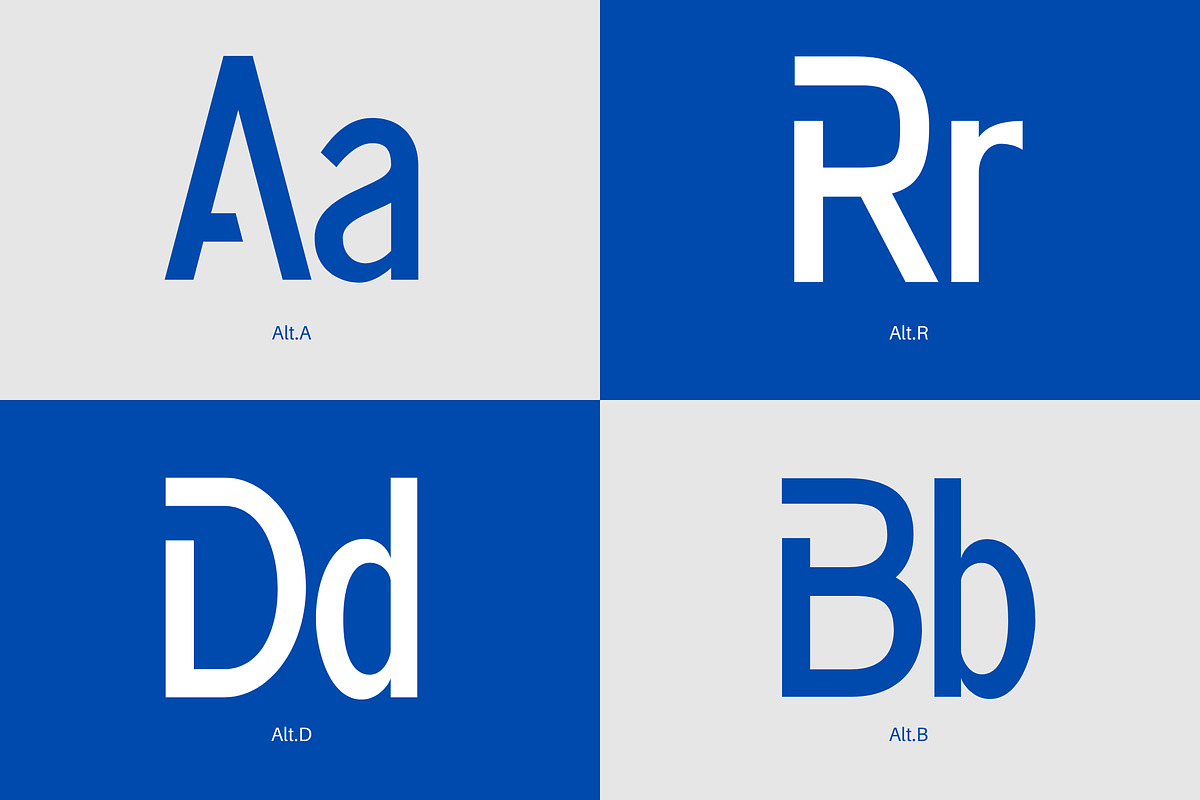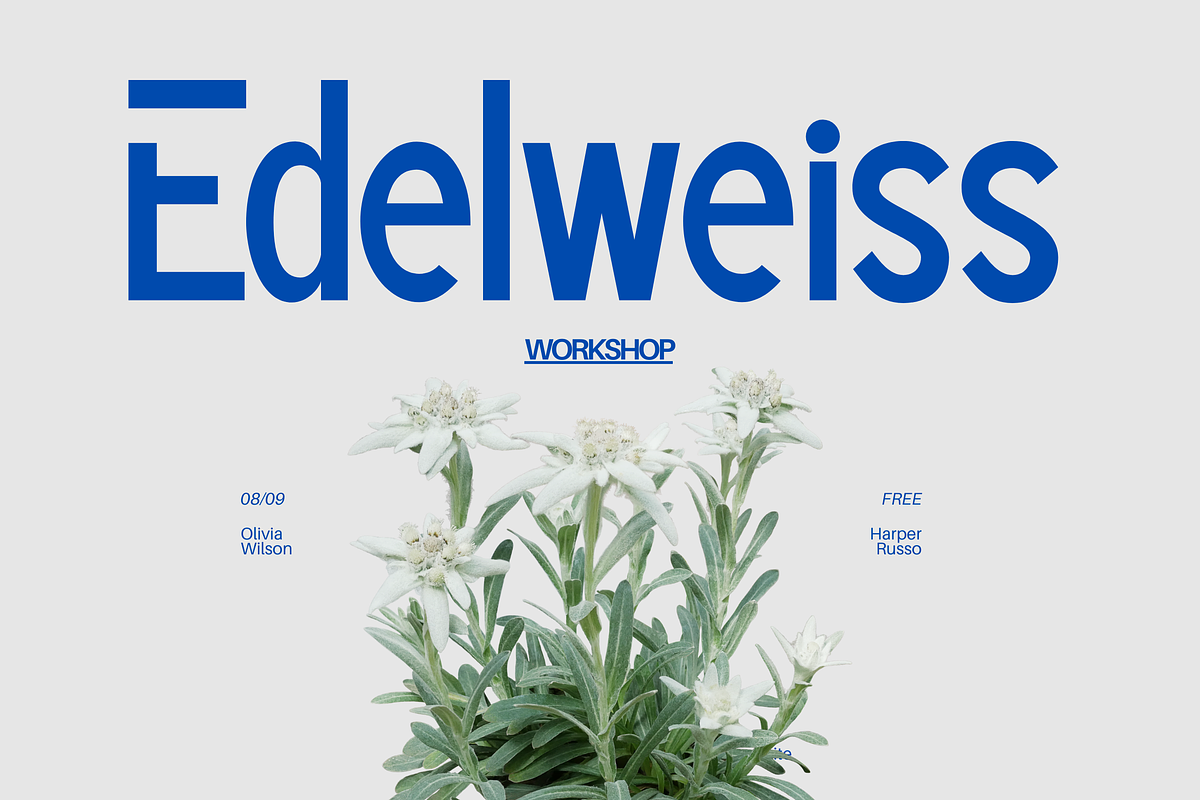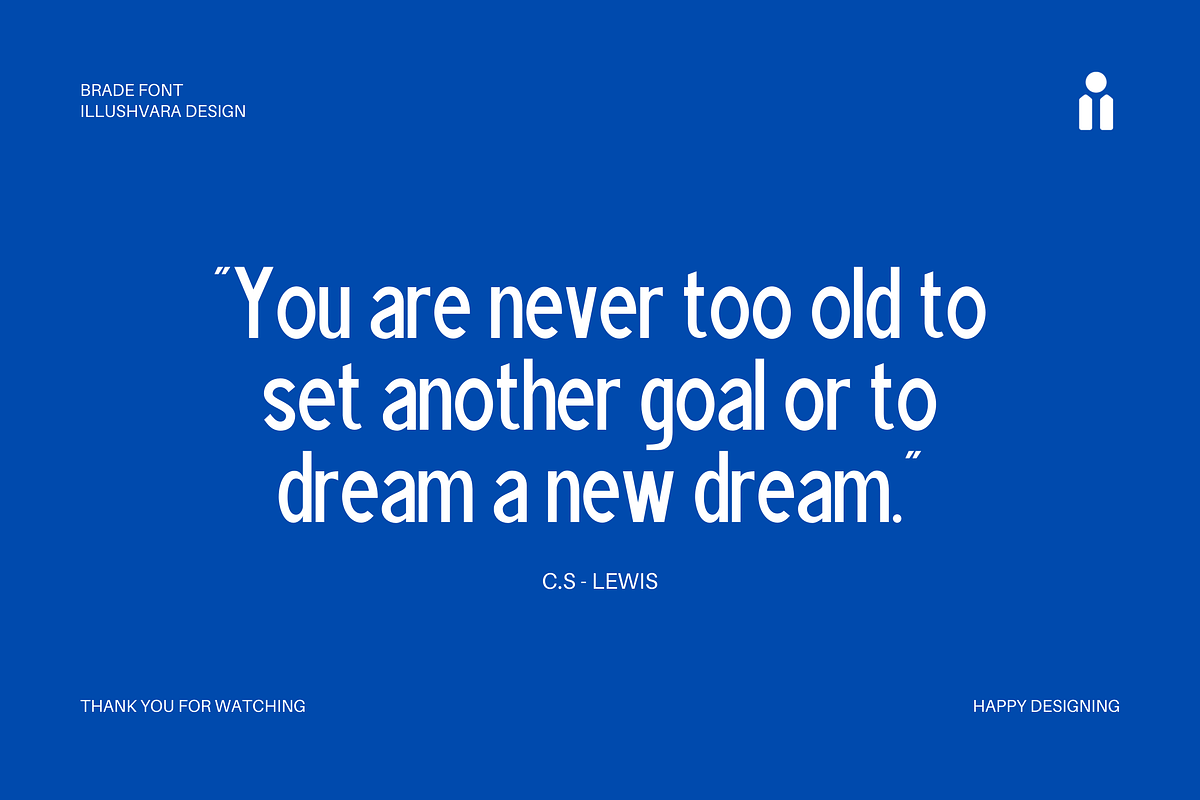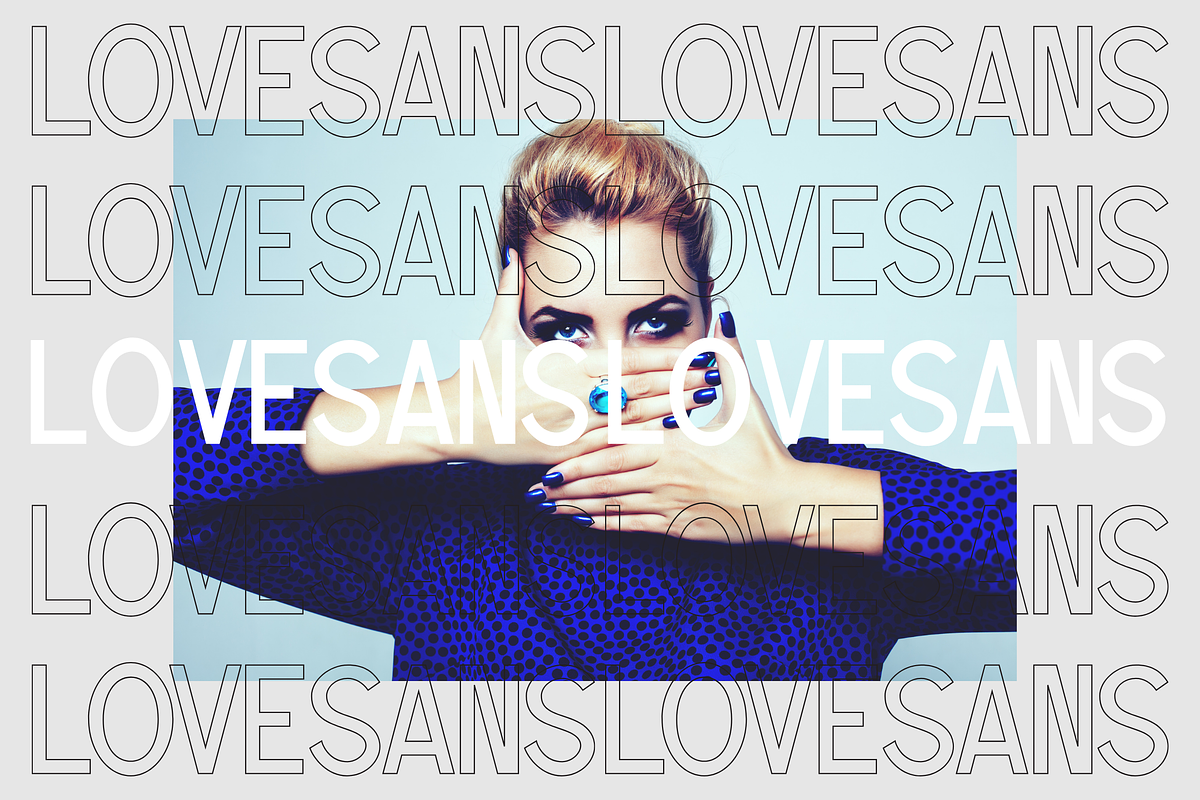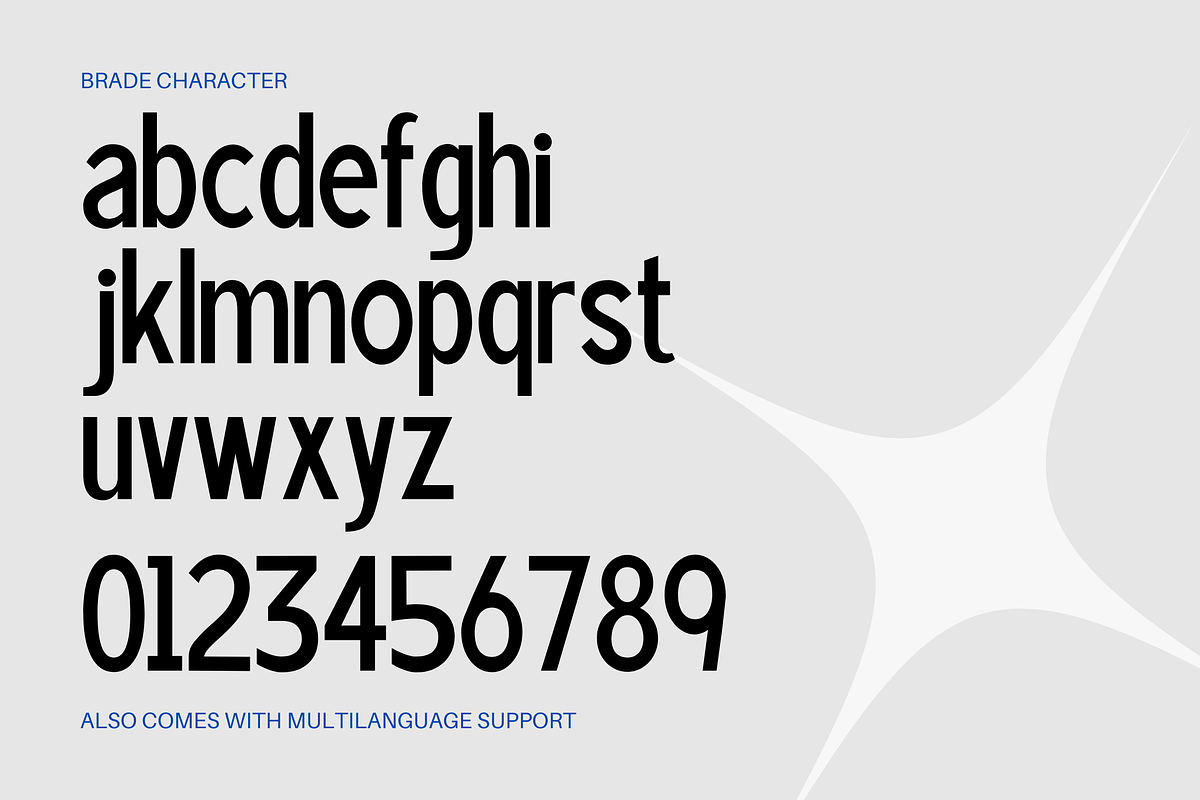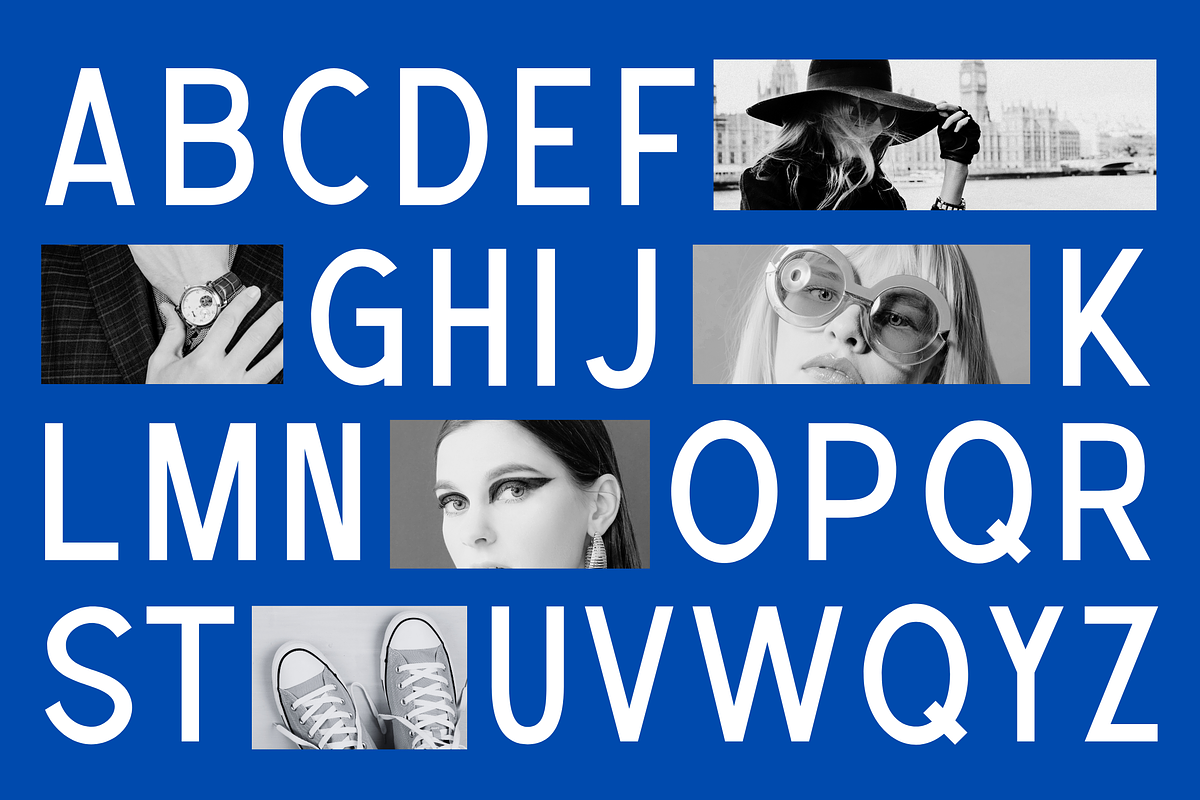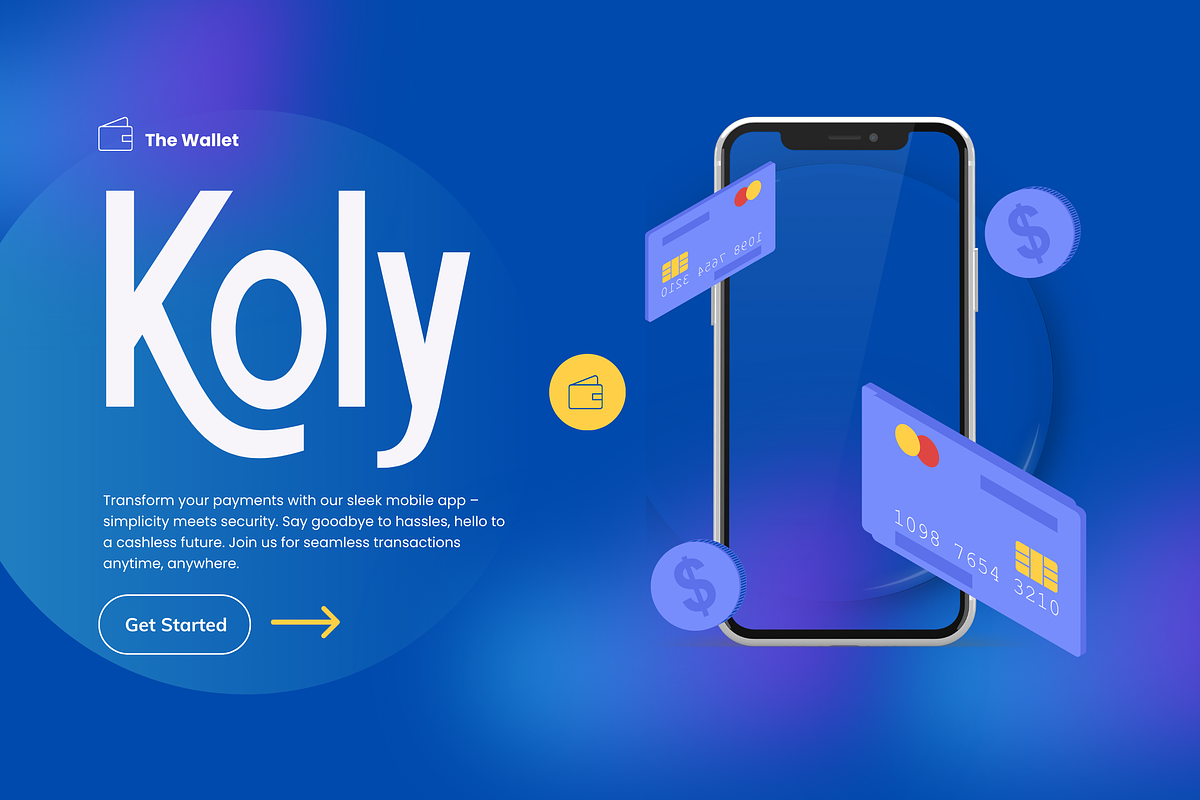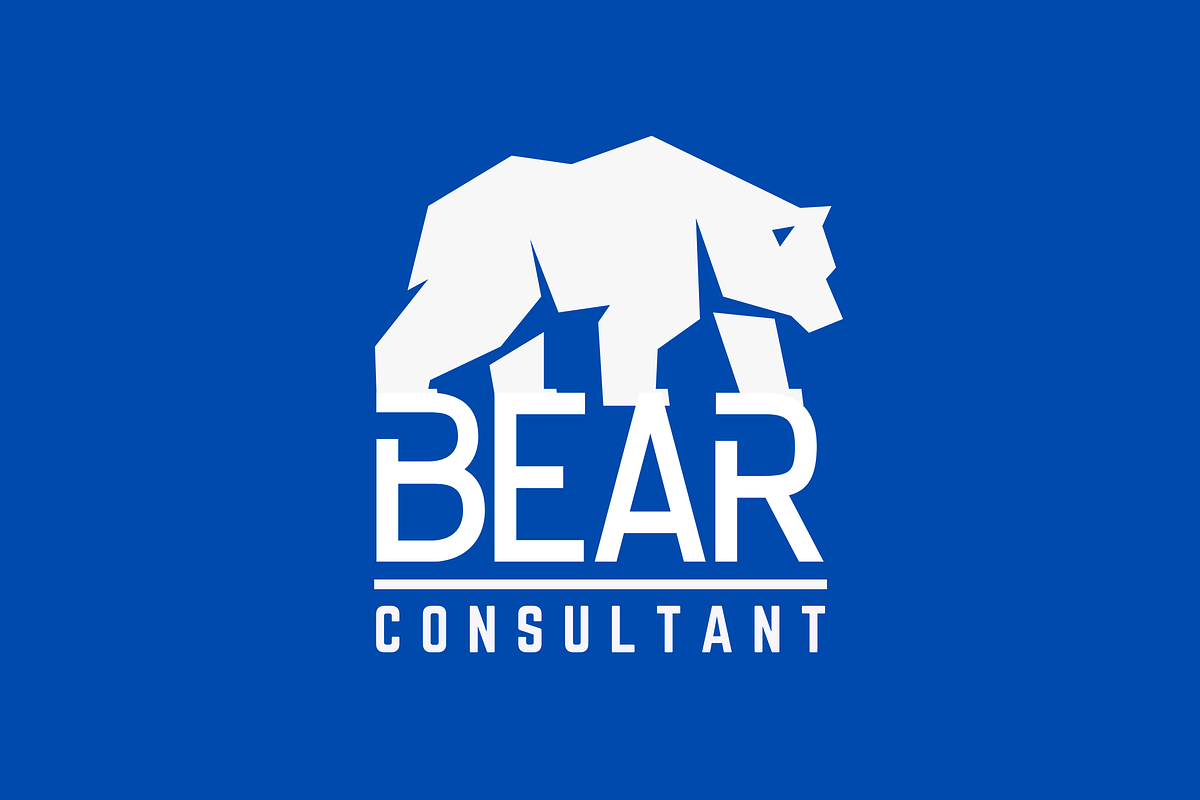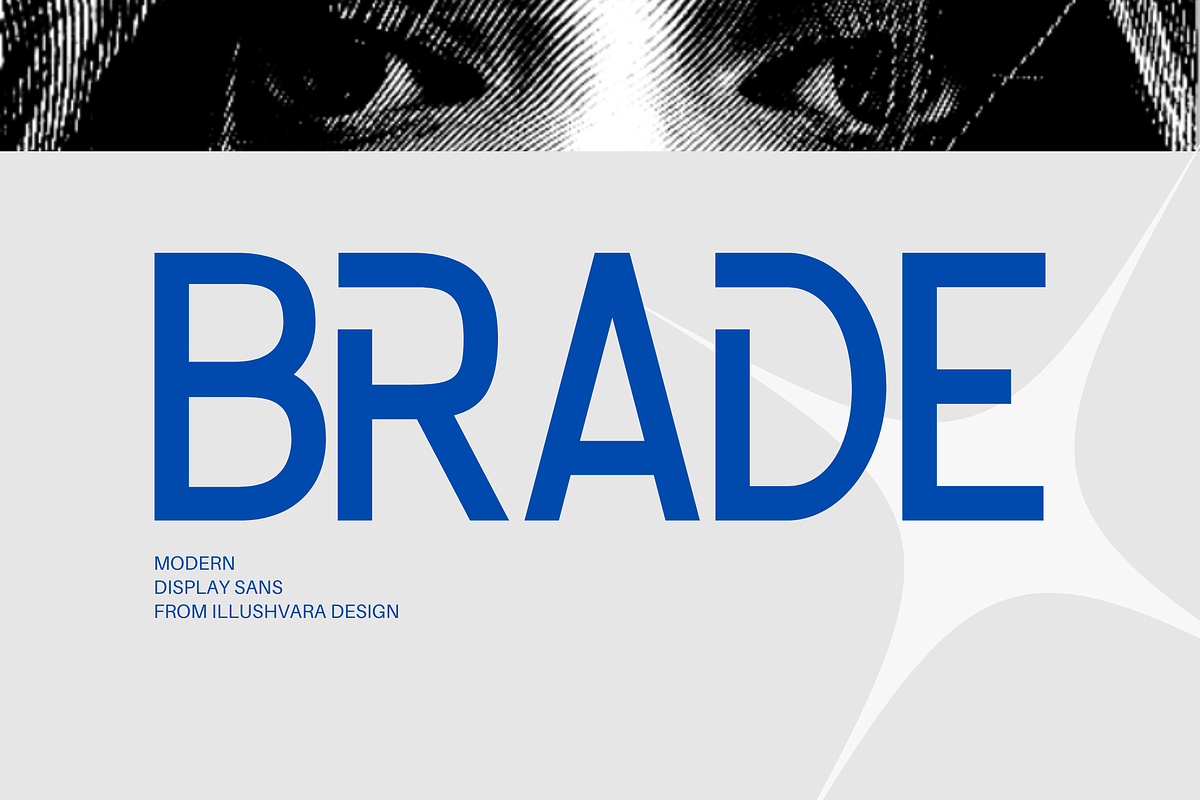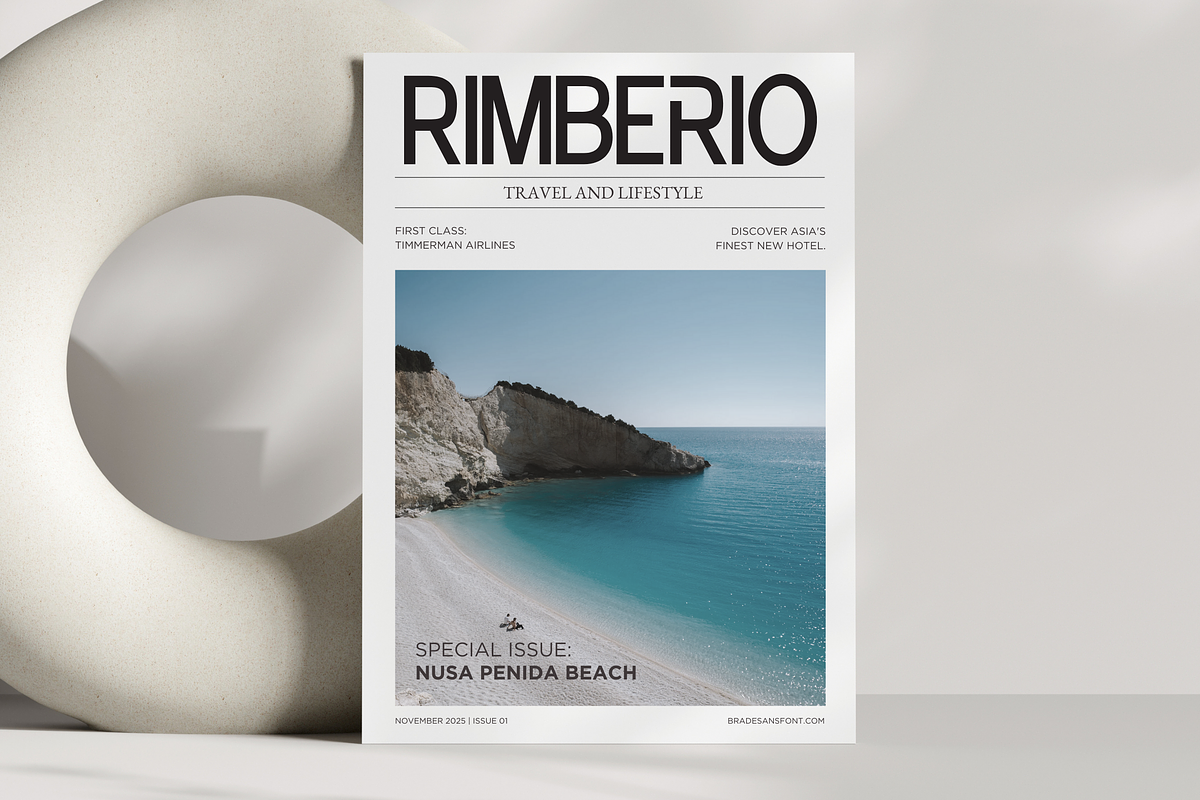
Brade - Modern Display Sans
Say hello to Brade - Modern Display Sans.
Elevate your design projects with Brade Font – a striking sans-serif typeface that seamlessly blends contemporary elegance with a bold, modern display theme. Designed to command attention and make a statement, Brade Font is the perfect choice for those seeking to infuse their creations with sophistication and flair.
Brade Font boasts clean lines, balanced proportions, and a distinctive character that sets it apart from traditional sans-serif fonts. Its sleek, minimalist aesthetic makes it incredibly versatile, lending itself effortlessly to a wide range of design applications, from branding and advertising to editorial layouts and web design.
With its modern display theme, Brader Font offers a unique twist on traditional sans-serif typography. Each letter is meticulously crafted to exude confidence and style, making it ideal for headlines, titles, and other prominent text elements that demand attention.